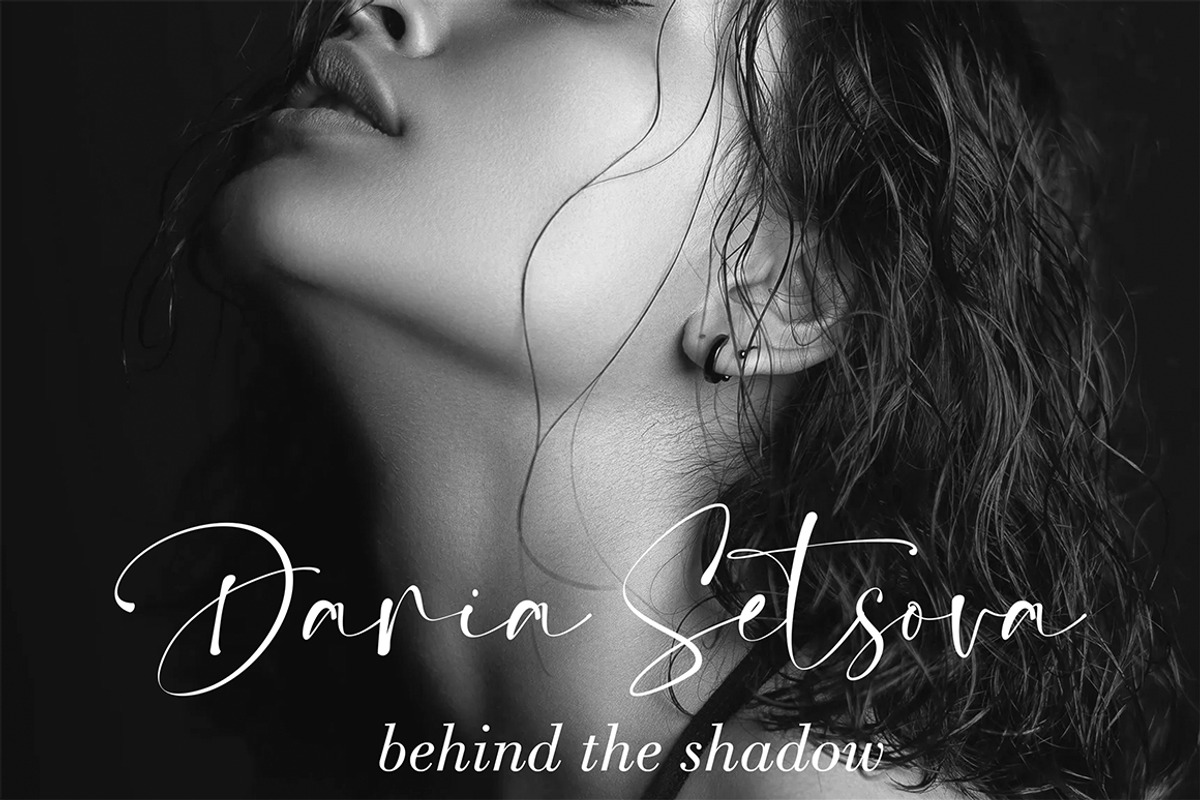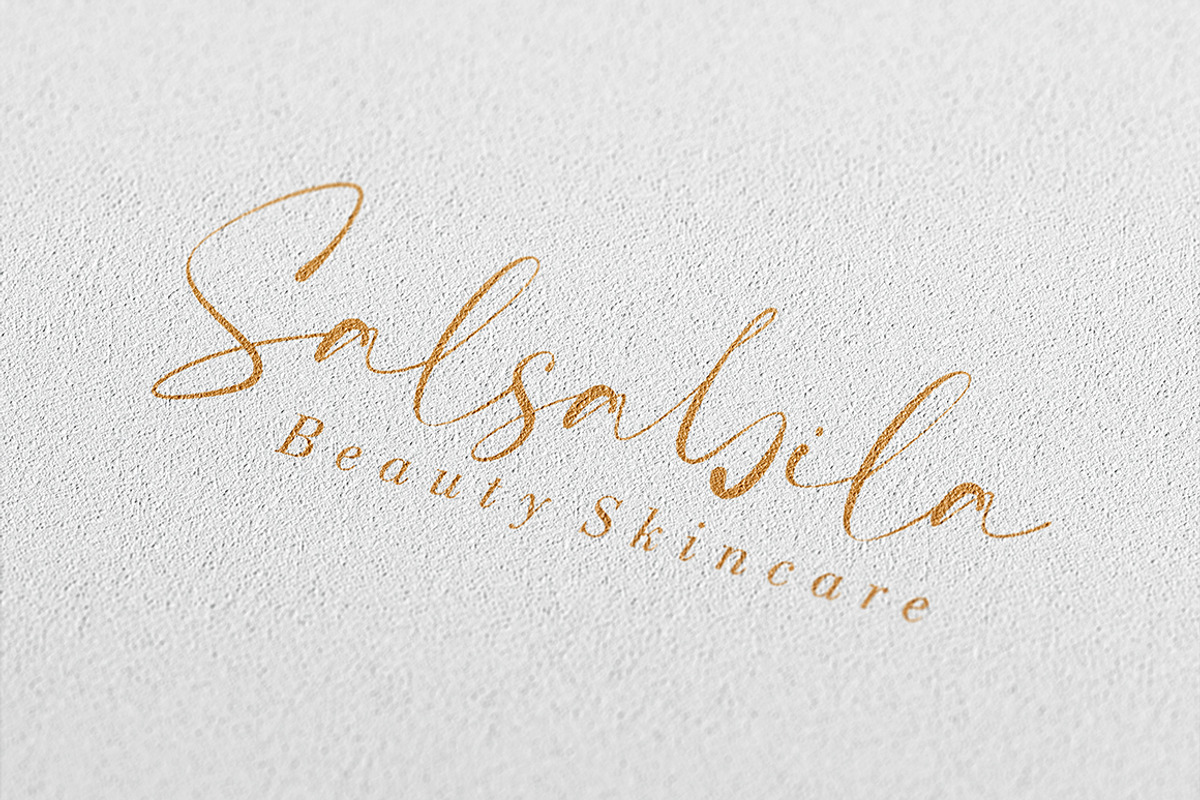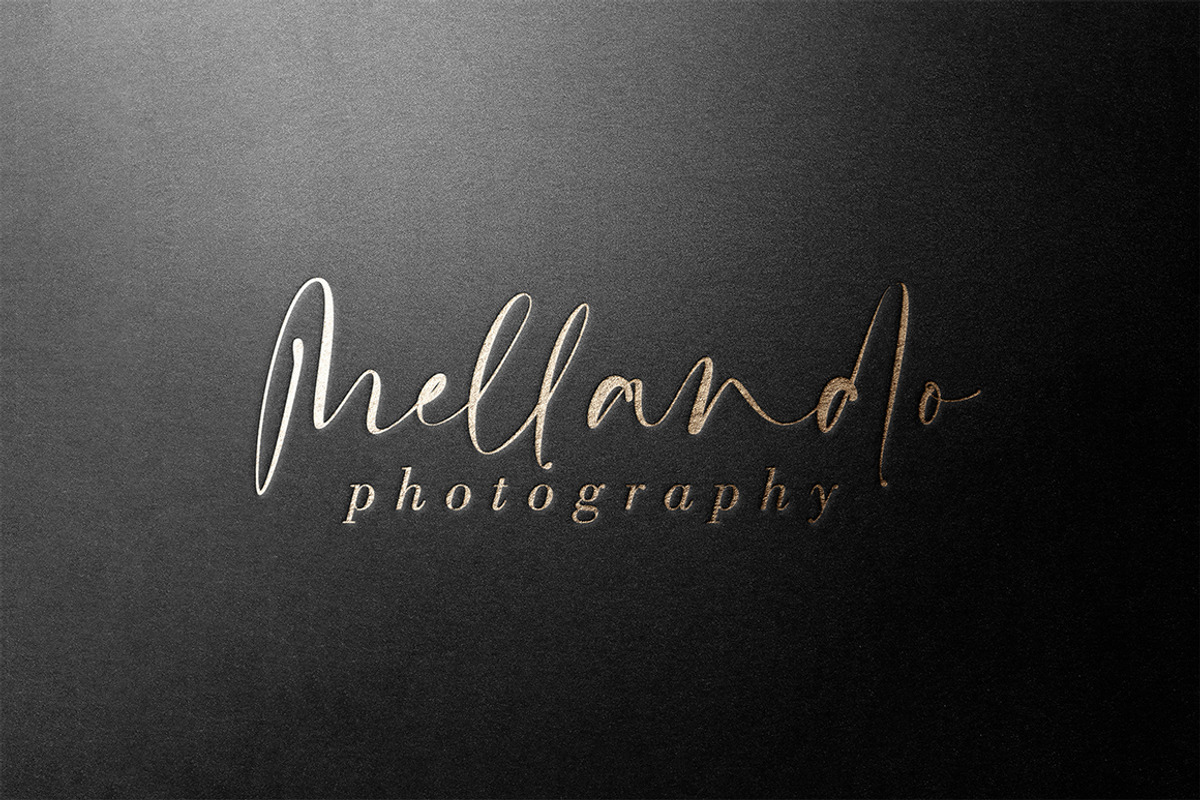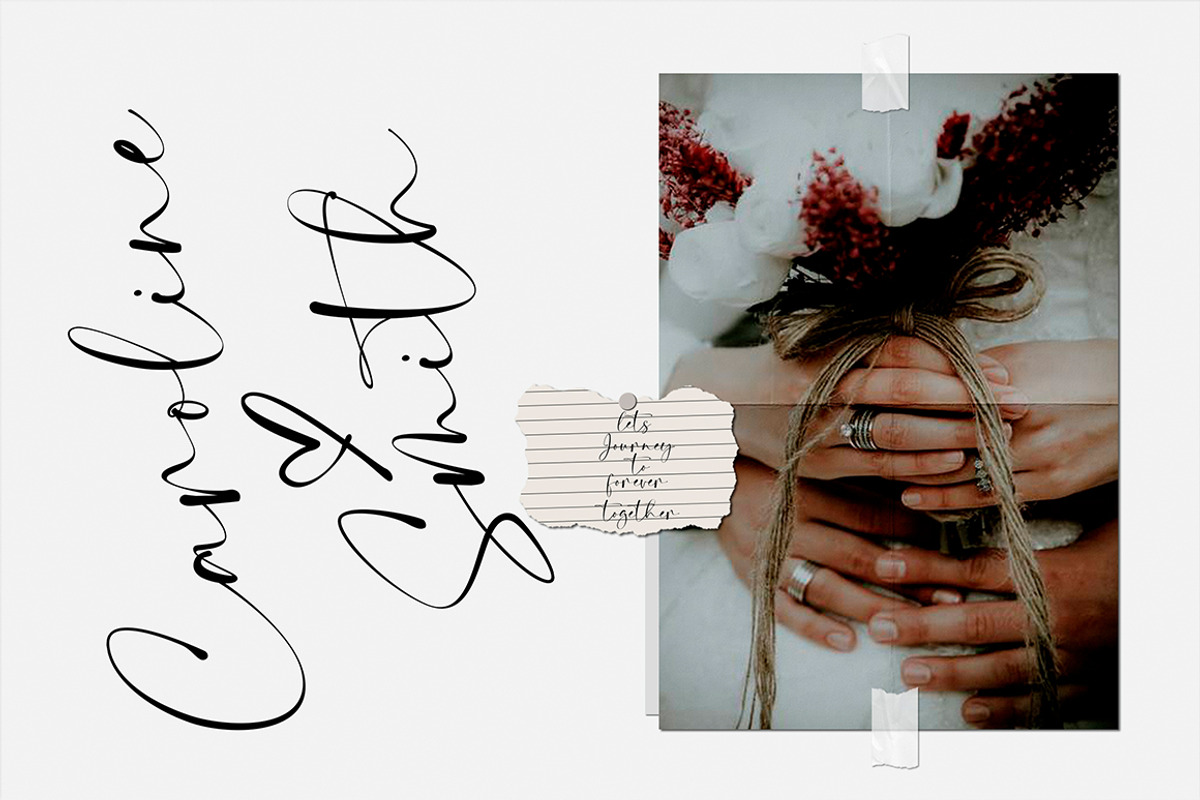
Dream Catcher is a modern chic signature font with magical pressure. It is great for logos, logotypes, branding, weddings, fashion, labels, book covers, t-shirts, Instagram posts, and others, and can add an elegant and classy look to your work.
The font includes a full set of beautiful hand-lettered uppercase and lowercase letters, numerals, a large range of punctuation and ligatures giving a realistic hand-lettered style.
Dream Catcher Handwritten Font